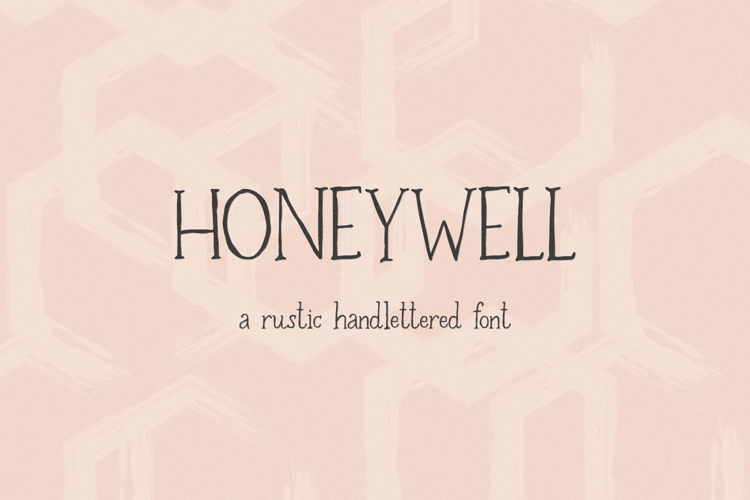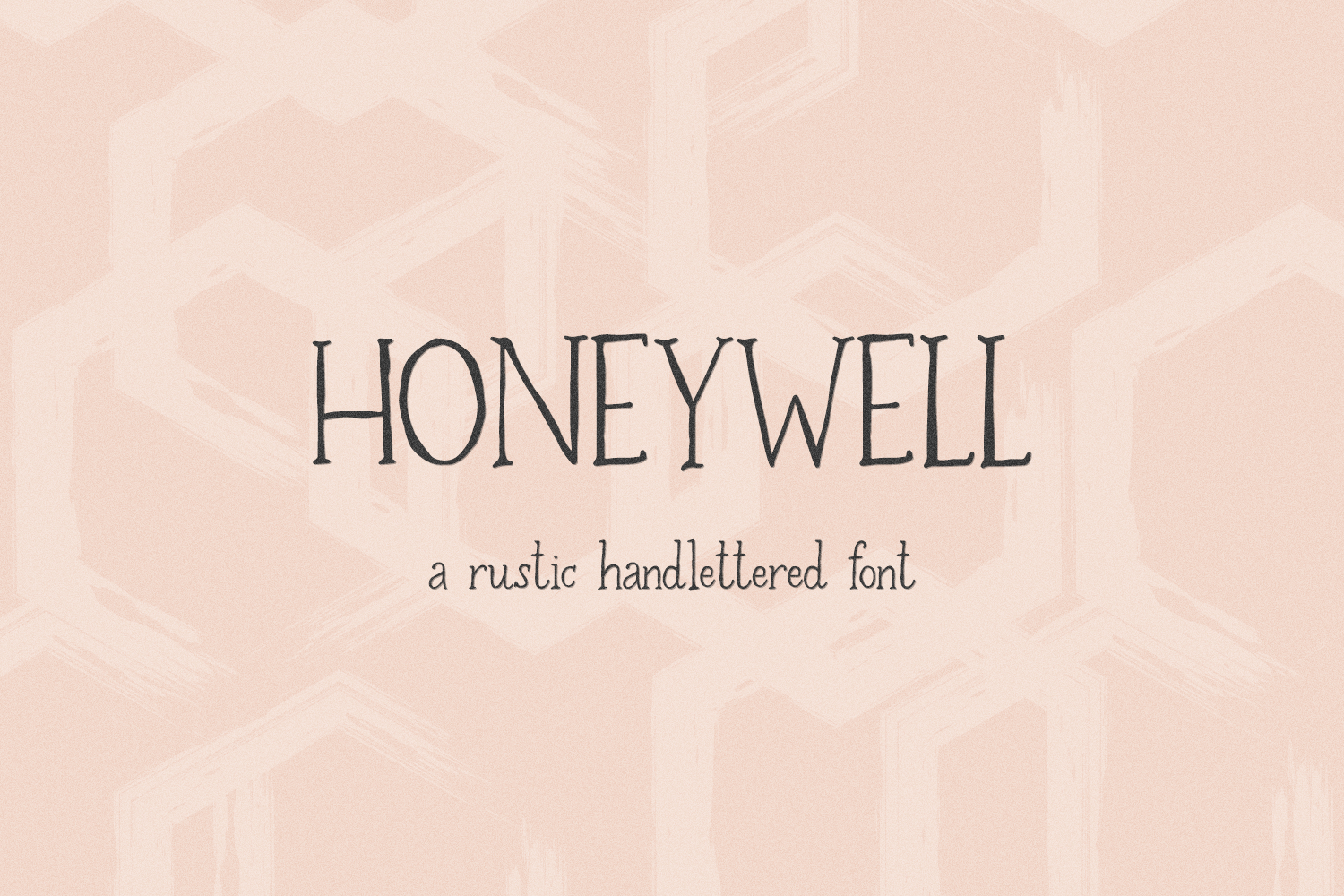
Honeywell Serif - A Handwritten Font
Honeywell Serif is a rustic serif font. This farmhouse-style font has the perfect amount of shabby-chic, and is hand lettered with intentional irregularity to add to the perfectly imperfect feel. Honeywell is perfect for rustic logos & branding, greeting cards, painted banners, digital planners, note-taking apps, Canva, Cricut projects, Silhouette projects, designing SVG files, laser cutting projects, & more.